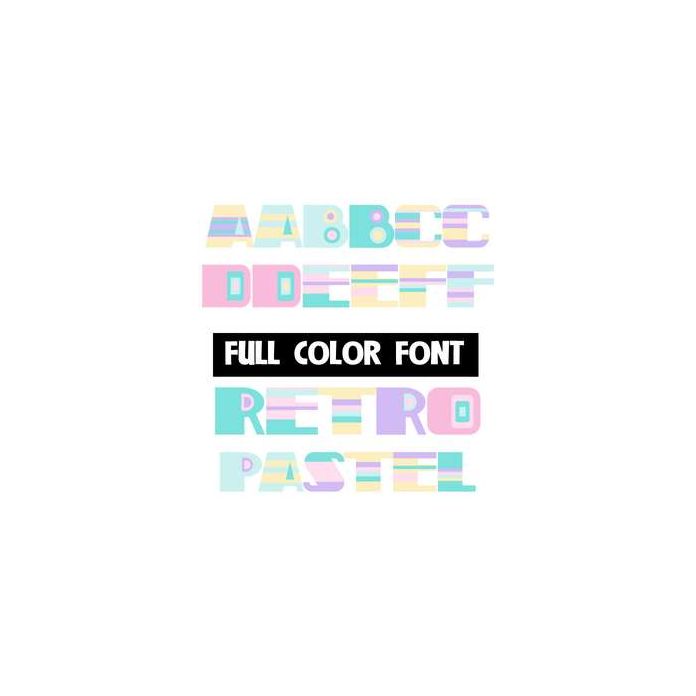
This full-color font features pastel colors on a retro font. This font works best for titles, displays, posters and more. Please note color fonts will show as black in non compatible programs. This font type is compatible with Silhouette Studio.